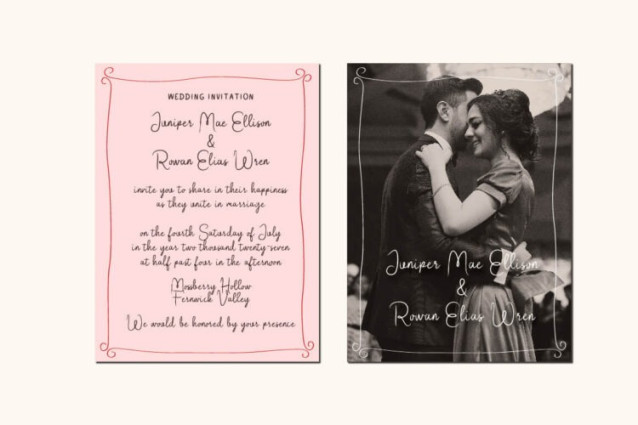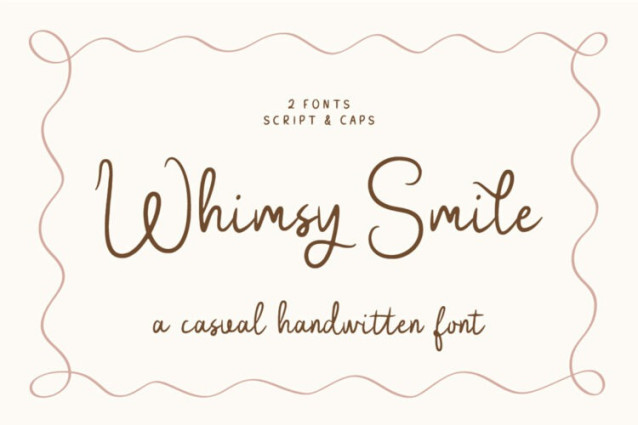
Whimsy Smile Font
Whimsy Smile Font is a natural, cheerful, and quirky handwritten script, full of whimsical romantic charm. With playful swashes on the beginning and ending of lowercase letters, Whimsy Smile brings joy and character to every word.
Perfect for joyful wedding stationery, charming greeting cards, and any creative project where you need a script that feels organic, delightful, and effortlessly enchanting.